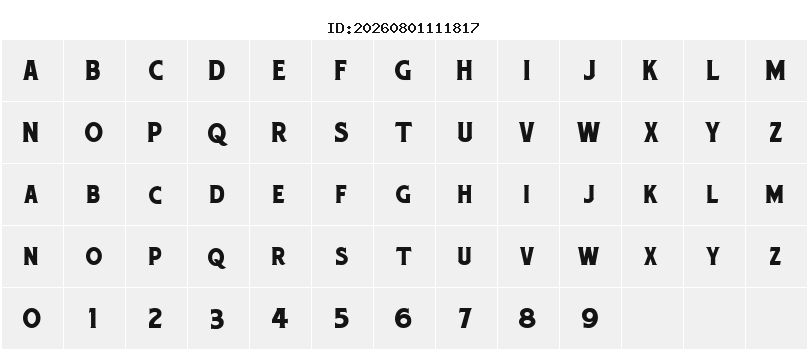
LHF Hensler Preview
• Font Name: LHF Hensler
• Full Font Name: LHF Hensler
About LHF Hensler.ttf
LHF Hensler.ttf is a modern, elegant sans-serif font designed for ultimate readability and visual harmony. Perfect for branding, headlines, web design, and print materials.